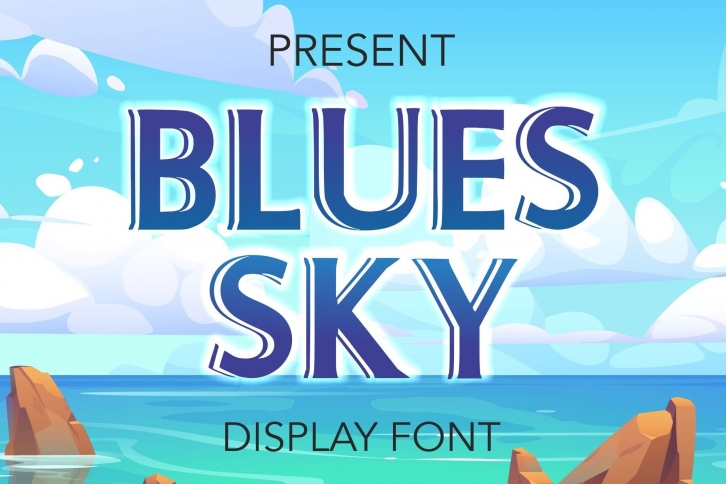
Blues Sky is a fun and friendly all-caps display font. With a casual and easy-to-read character, this font is perfect for children-themed designs and school projects. Your options are limitless.